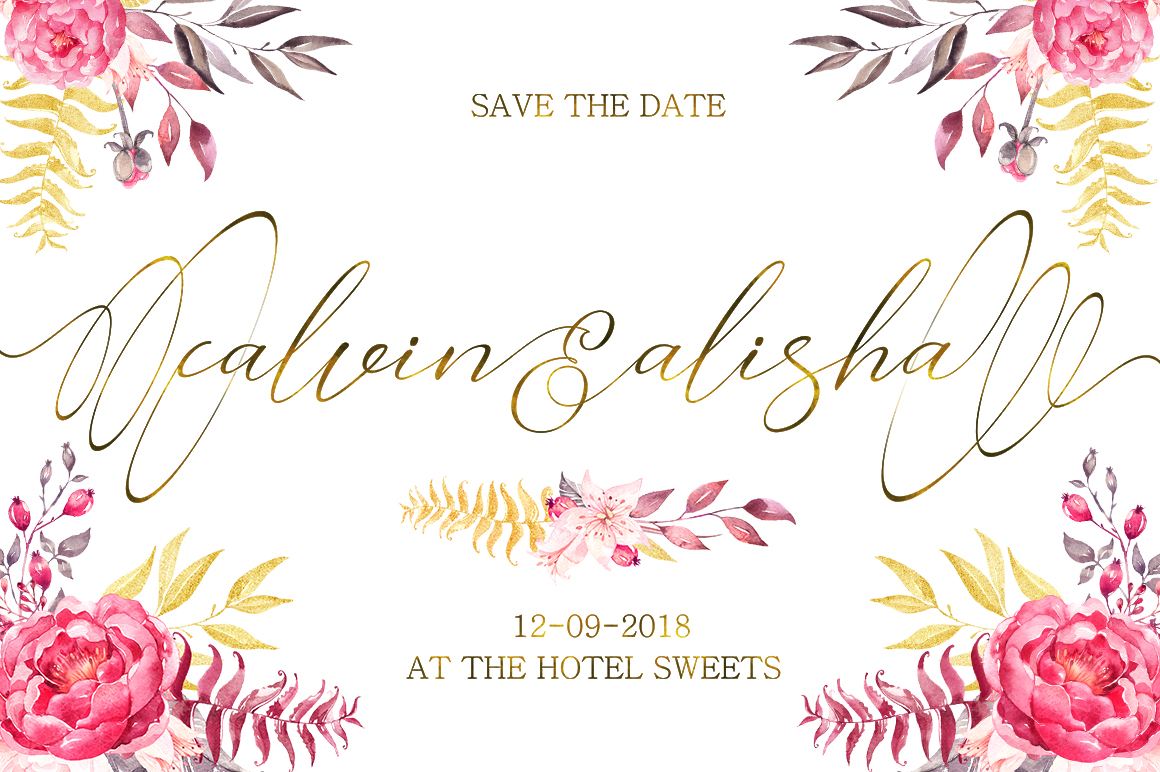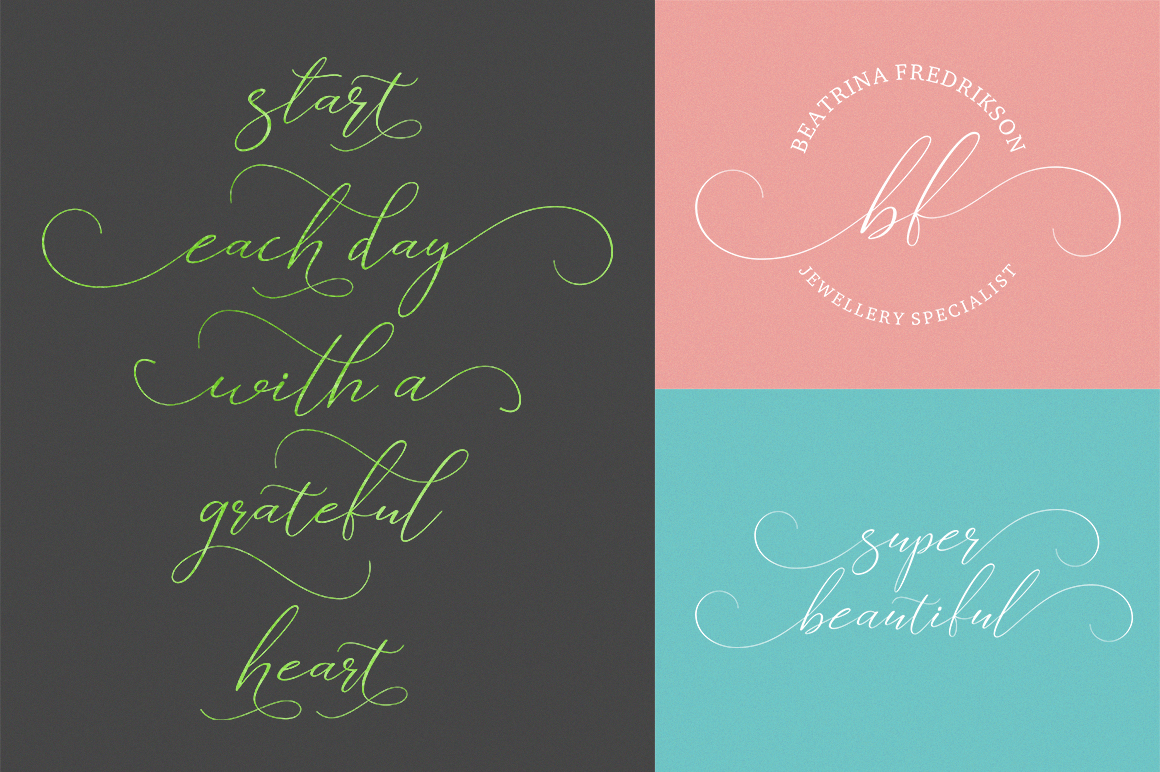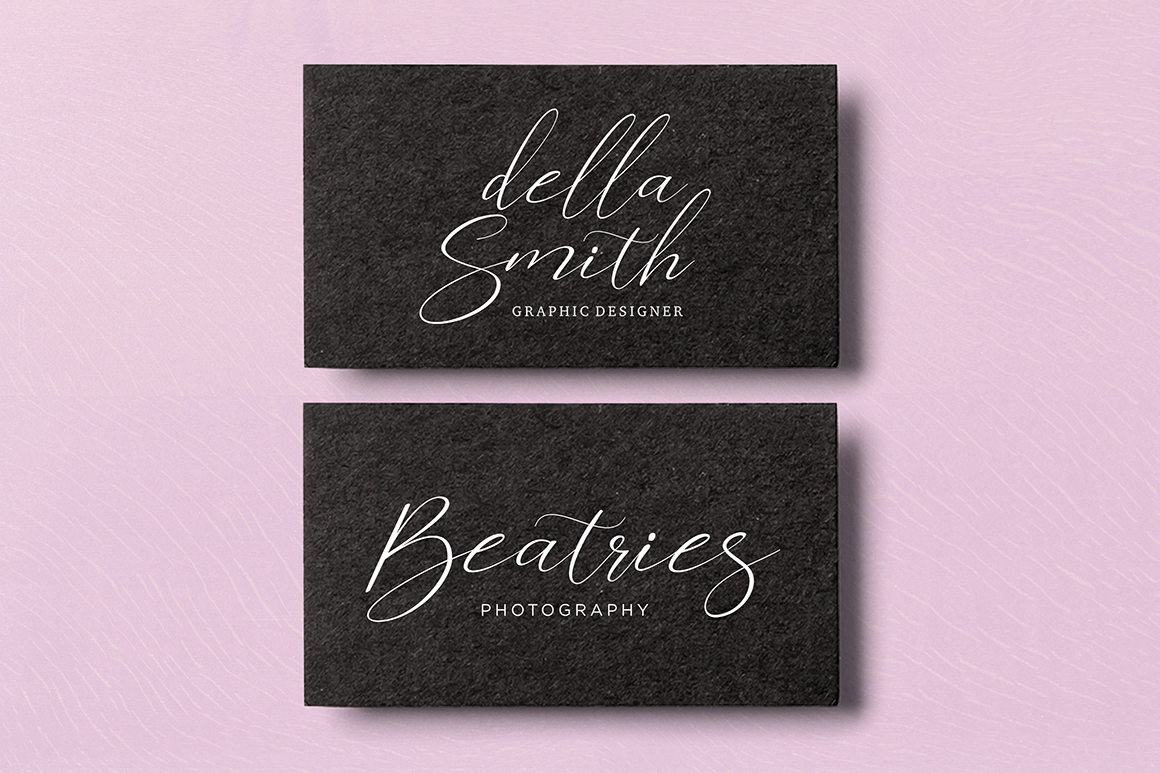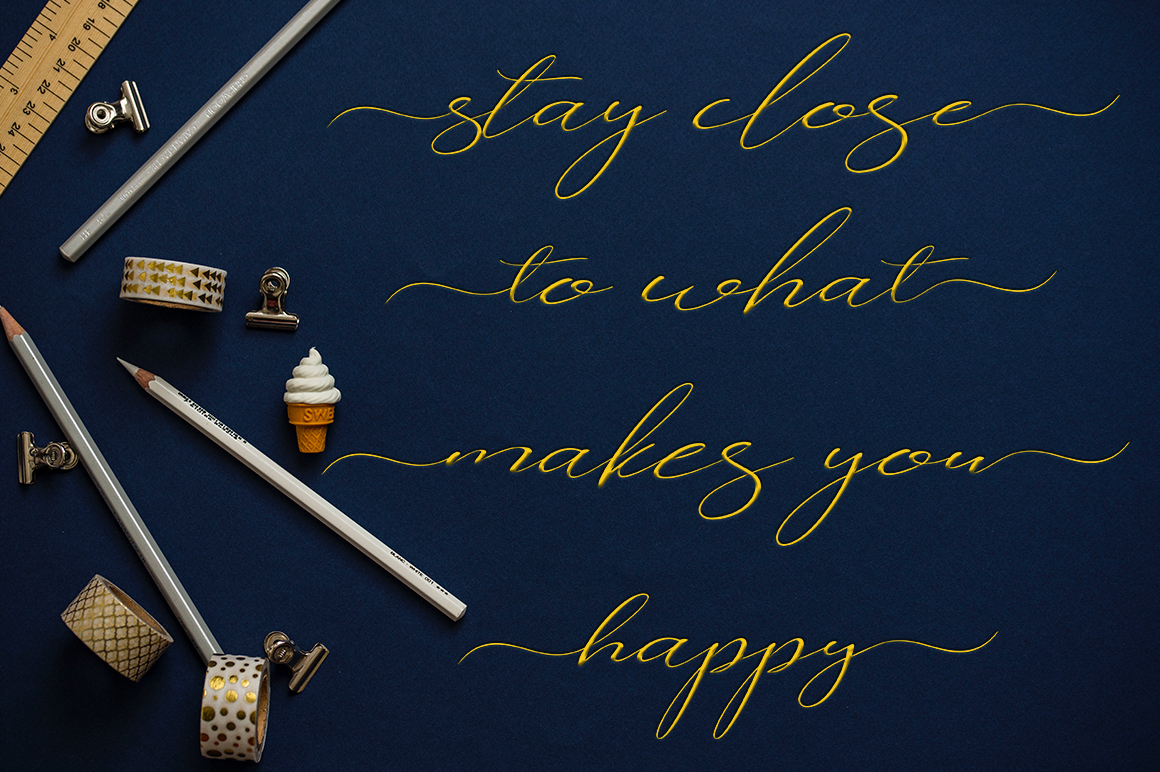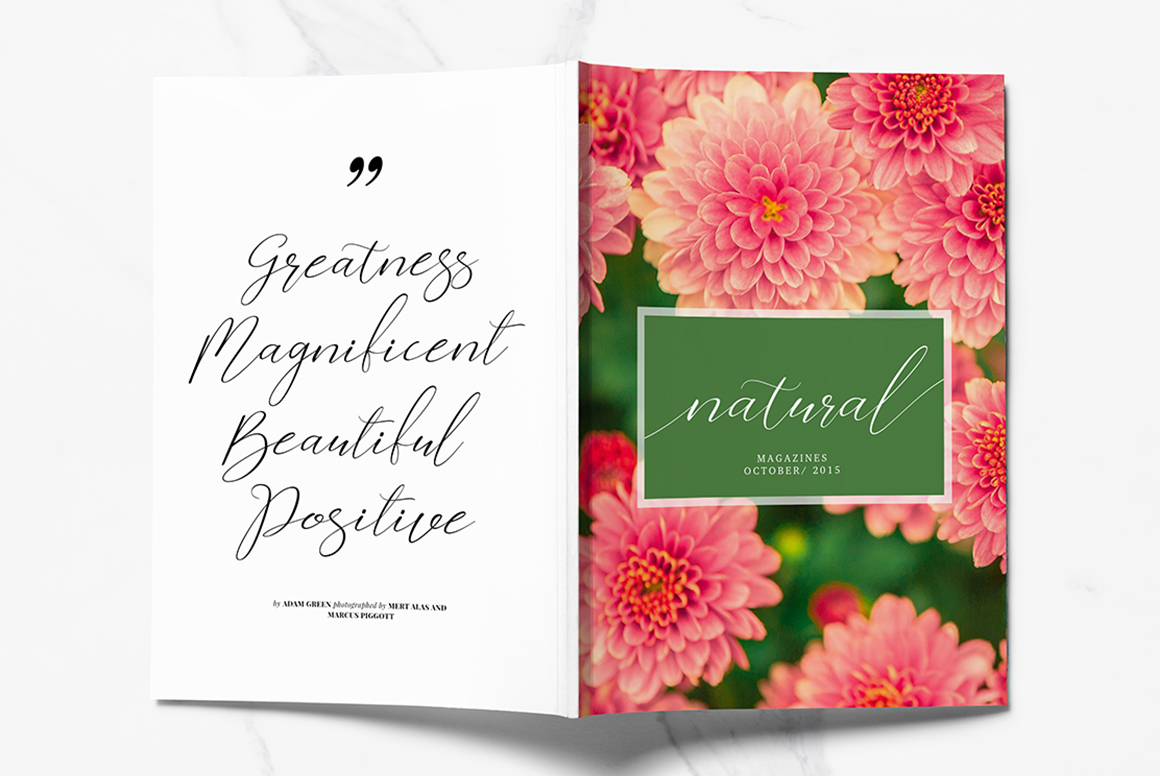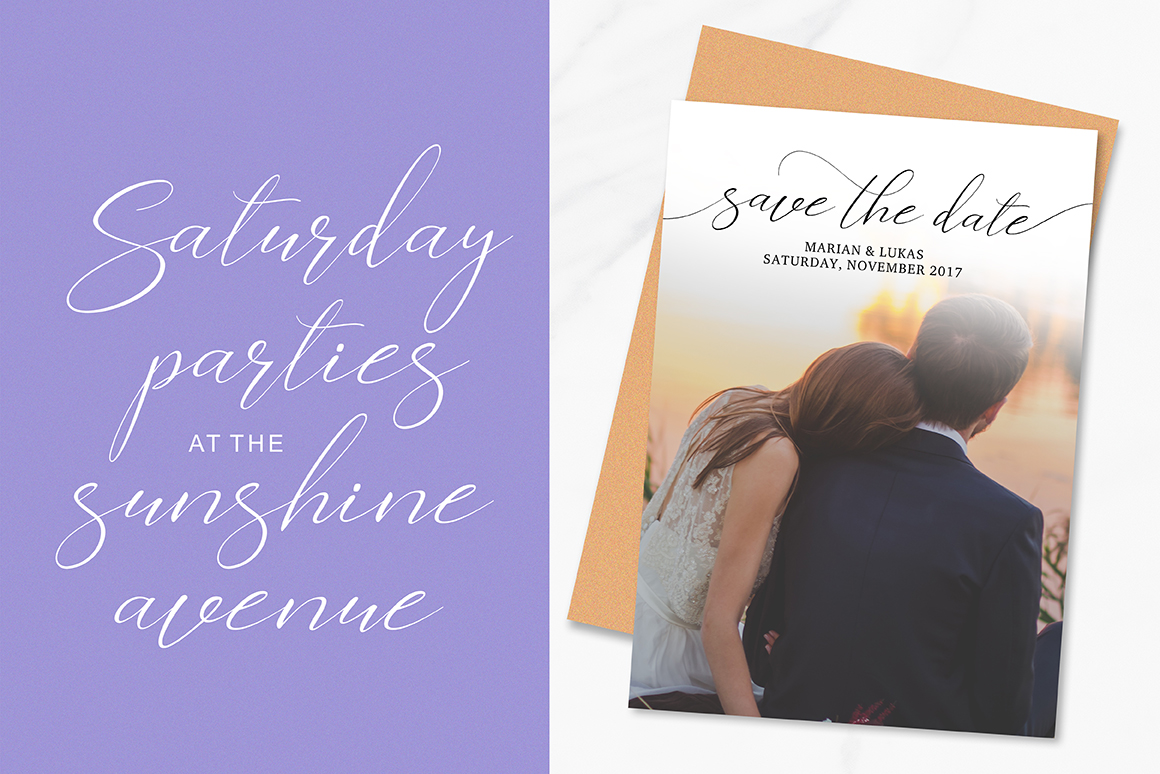
Cherella Font: Elevate Your Designs with Elegant Modern Calligraphy
In the world of typography, few fonts capture the essence of elegance and sophistication as beautifully as Cherella. This modern calligraphy font is a masterpiece of design, offering a flowing and personal touch that instantly elevates any project. Whether you’re a designer, crafter, or simply someone who appreciates the art of beautiful writing, Cherella is sure to captivate you with its unique charm.
What Makes Cherella Stand Out?
Cherella is not just another font; it’s an experience. With over 400 unique glyphs and 245 alternate characters, this font offers an incredible range of creative possibilities. Its modern calligraphy style is both elegant and approachable, making it perfect for a wide range of applications, from wedding invitations and branding materials to digital content and craft projects.
Key Features of Cherella Font
- Modern Calligraphy Style: Cherella boasts a contemporary calligraphy look that adds a touch of sophistication to any design.
- Extensive Glyph Set: With over 400 unique glyphs, you have a vast array of options to personalize your text and make it truly stand out.
- Alternate Characters: The font includes 245 alternate characters, allowing for even more customization and creativity.
- Elegant and Personal Touch: Cherella’s flowing lines and elegant curves bring a personal and warm feel to your designs.
Cherella is a versatile font that caters to the needs of both designers and crafters. For designers, it offers the flexibility and range needed for professional projects, while for crafters, it provides a beautiful, handmade feel that’s perfect for DIY projects, such as handmade cards, scrapbooking, and more.
How to Use Cherella in Your Projects
Incorporating Cherella into your projects is straightforward. Here are a few ideas to get you started:
- Wedding and Event Stationery: Use Cherella for wedding invitations, save-the-date cards, and other event stationery to set the tone for an elegant and memorable occasion.
- Branding and Packaging: Add a touch of luxury to your brand with Cherella. It’s perfect for logos, product labels, and packaging that require a sophisticated look.
- Digital Content: Elevate your digital content, such as blog headers, social media graphics, and email newsletters, with Cherella’s elegant and modern calligraphy.
- Craft Projects: Bring a personal touch to your craft projects, including handmade cards, scrapbooking, and DIY decorations, with Cherella’s beautiful and flowing script.
Tips for Getting the Most Out of Cherella
To maximize the potential of Cherella, consider the following tips:
- Experiment with Glyphs: Take advantage of Cherella’s extensive glyph set to add unique touches to your designs.
- Mix and Match: Combine Cherella with other fonts or design elements to create visually appealing contrasts and hierarchies.
- Pay Attention to Spacing: Adjust the spacing between letters and words to enhance the flow and readability of your text.
Cherella font is a stunning example of modern calligraphy, offering designers and crafters a tool to add elegance and a personal touch to their projects. With its extensive glyph set, alternate characters, and flowing script, Cherella opens up a world of creative possibilities. Whether you’re working on professional designs or personal craft projects, Cherella is sure to inspire and elevate your work.